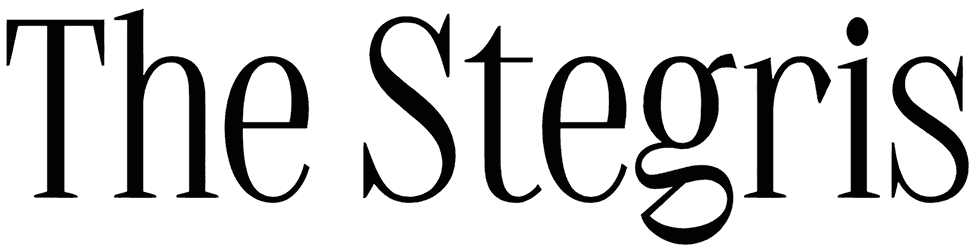
The Stegris Font
Carrying a sense of formality, confidence, trustworthiness, and authenticity make The Stegris is a reliable source of inspiration for all of your critical projects.
This newspaper font can turn any kind of casual creative idea, including movie posters, branding, product packaging, blog posts, or presentations, into a timeless piece of art. Just in case you crave to have another majestic font the same as this one, don’t hesitate to visit the RB collection.